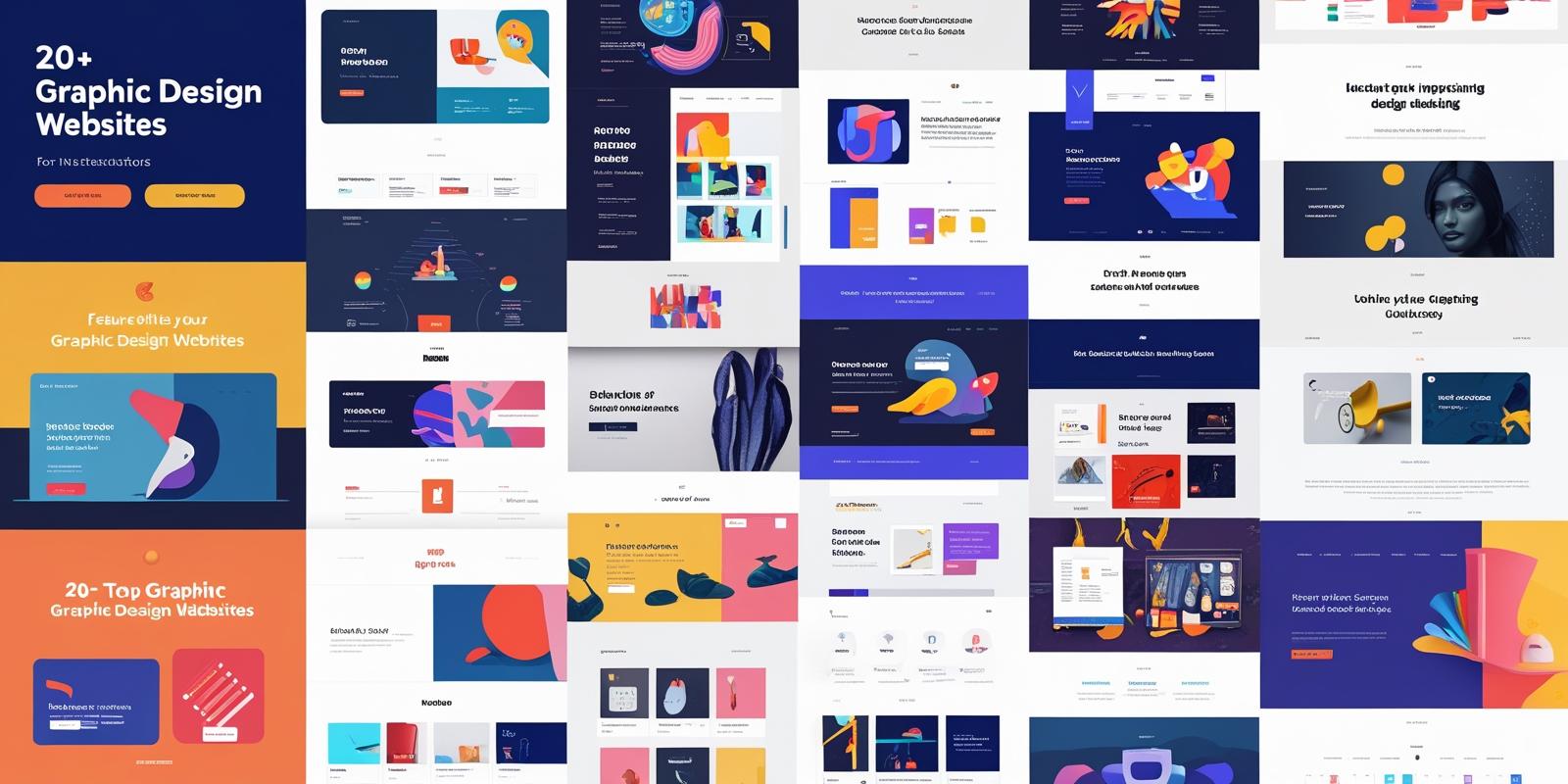
20+ Best Graphic Design Inspiration Websites For Students And Professionals
Every designer whether a student, aspiring creative, or seasoned professional needs a spark of inspiration to keep their work fresh and engaging. That’s where graphic design inspiration websites come in. These platforms serve as digital galleries, filled with portfolios, tutorials, and real world case studies that elevate your creativity. You not only gain visual ideas but also improve your storytelling and expand your professional skill set.
In this article, we’ll explore 20+ graphic design inspiration websites that are must visits for students and professionals who want to learn, get inspired, and showcase their work. Along the way, we’ll pair each recommendation with suggested font inspirations (from our design memory) to show how typography plays a key role in branding and creative storytelling.
Why Graphic Design Inspiration Websites Matter
The Role of Inspiration in Creativity
Every creative professional faces blocks. Having access to curated graphic design inspiration websites helps you overcome them. They showcase trends, portfolios, and unique approaches to design that broaden your imagination.
Learning from the Best
For students, textbooks except more visual and interactive. Instead of dry theory, you see real world applications, which makes learning engaging and practical.
20+ Best Graphic Design Inspiration Websites
Here’s a curated list of the most influential platforms where designers go for creative energy.
1. Behance – The Global Creative Hub
Behance remains one of the leading graphic design inspiration websites for showcasing and discovering portfolios. From branding to UI/UX, you’ll find endless case studies.
Font Pairing Suggestion: Belle Nova (modern display) + Rio Saint (brush script) for a dynamic portfolio header.
2. Dribbble – The Designer’s Playground
A community driven platform, Dribbble is a go to for UI/UX inspiration and modern graphic assets. It’s one of the best graphic designers websites to network and grow visibility.
Font Pairing Suggestion: Ink Boy (handwritten) + The Lumion (elegant serif) for a playful yet professional tone.
3. Awwwards – Award Winning Creativity
If you want cutting edge design trends, Awwwards is among the best graphic design inspiration websites. It showcases websites with outstanding UI/UX, motion, and branding.
Font Pairing Suggestion: Kobo (retro) + Honey Beezy (playful script) to mirror digital energy.
4. Designspiration – Pinterest for Designers
Much like Pinterest, Designspiration curates visual boards tailored for designers. It’s perfect for quick ideas on color palettes, layouts, and typography.
Font Pairing Suggestion: Apple Crush (bold) + Beauty Signature (signature script).
5. CreativeBloq – Learn & Get Inspired
More than just inspiration, CreativeBloq offers tutorials, resources, and industry insights. It’s a top pick for graphic design inspiration websites if you want both education and creativity.
Font Pairing Suggestion: Omarta (classic serif) + Hellena (modern handwritten).
6. Pinterest – Visual Moodboard Power
Though not exclusively for designers, Pinterest is one of the best graphic design inspiration websites due to its sheer volume of visuals. From branding to packaging, it covers everything.
Font Pairing Suggestion: Janethville (quirky display) + Fleur Bleue (romantic serif).
7. 99Designs Discover – Professional Portfolios
This platform highlights professional level design projects, making it great for students seeking graphic design inspiration websites that bridge education with real world design.
Font Pairing Suggestion: Graciast (script) + Carletone (elegant serif).